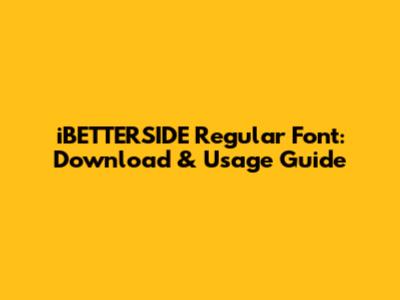
Hey design lovers and fellow font fanatics! Today, we're diving deep into the awesome world of the iBETTERSIDE Regular font. If you've been on the hunt for a typeface that's both versatile and stylish, you've hit the jackpot. This font isn't just another pretty face; it's a workhorse that can elevate your projects from "meh" to "wow!" Whether you're a seasoned graphic designer, a blogger trying to make your site pop, or just someone who appreciates good typography, understanding how to download and use the iBETTERSIDE Regular font effectively is key. We'll walk you through where to snag it, how to install it on your devices, and some killer tips on making it shine in your designs. So, grab a coffee, get comfy, and let's get this font party started!
Unpacking the iBETTERSIDE Regular Font: What Makes It Special?
So, what's the big deal about the iBETTERSIDE Regular font download? Well, guys, it's all about the details. This font is designed with clarity and readability at its core, making it a dream for everything from long-form text to catchy headlines. Its clean lines and balanced proportions ensure that no matter the size or application, your message comes across loud and clear. Think about those moments when you're scrolling through a website or reading an article, and the text just flows. That's the magic of a well-crafted font like iBETTERSIDE Regular. It’s not overly decorative, which means it won't distract from your content, but it has just enough personality to feel unique and engaging. We're talking about a font that feels modern yet timeless, professional yet approachable. This sweet spot is hard to find, but iBETTERSIDE Regular nails it. It’s the kind of font that whispers confidence and sophistication without shouting for attention. This makes it incredibly adaptable. Imagine using it for a sleek corporate brochure, a trendy cafe's menu, a personal blog's "About Me" page, or even for the user interface of an app. The iBETTERSIDE Regular font handles it all with grace. Its regular weight strikes a perfect balance – not too thin to be illegible, and not too bold to overpower other elements. This neutrality is its superpower, allowing it to play nicely with other fonts in your design arsenal. You can pair it with a more decorative font for headings, and it will happily step back and let the other font take the spotlight, while still maintaining its own understated elegance. Or, you can use it for an entire layout, and it will provide a consistent, professional look that’s easy on the eyes. The subtle nuances in its letterforms, the consistent spacing, and the thoughtful design of each character contribute to an overall aesthetic that is both pleasing and highly functional. It’s this blend of aesthetic appeal and practical utility that makes the iBETTERSIDE Regular font a go-to choice for designers looking for reliability and style.
Leveraging iBETTERSIDE Regular Font in Your Designs
Now that you’ve got the iBETTERSIDE Regular font download sorted and installed, the real fun begins: using it! This font is a fantastic all-rounder, but knowing how to best leverage its strengths can make a significant difference in your design outcomes. Let's explore some ways to make iBETTERSIDE Regular truly sing in your projects.
For Body Text and Readability:
This is where iBETTERSIDE Regular truly shines. Its clean, legible design makes it perfect for large blocks of text. Whether you're writing a blog post, crafting an email newsletter, or designing a book layout, this font ensures your readers can consume your content comfortably without eye strain. Ensure your font size is appropriate – typically between 10-12pt for print and 16px or higher for web, depending on line height. Pay attention to line spacing (leading); a good rule of thumb is to set it to about 1.2 to 1.5 times the font size to ensure comfortable reading. Letter spacing (tracking) is also important; iBETTERSIDE Regular generally has well-balanced tracking, but you might want to slightly increase it for very long lines of text to improve readability. Avoid hyphenation in short lines or narrow columns, as it can break the flow. The key is to create a comfortable reading experience, and iBETTERSIDE Regular provides a solid foundation for that.
For Headlines and Titles:
While iBETTERSIDE Regular is excellent for body text, don't underestimate its power for headlines! Its clarity makes it highly effective for titles that need to be instantly understood. To make it stand out, consider using it in a slightly larger size or perhaps in a bolder weight if available (though the regular is quite strong on its own). You can also play with color – using a contrasting color against your background can make your headlines pop. All caps can work well for shorter, punchier headlines, but be mindful of readability with prolonged use. For longer headlines, sentence case or title case often works better. Experiment with placing it on a different background color or within a distinct design element, like a colored bar or shape, to give it prominence. The iBETTERSIDE Regular font has enough presence to command attention without being overly aggressive, making it suitable for a wide range of branding applications where you want a clear, authoritative voice.
Pairing with Other Fonts:
No design is an island, and often, you'll want to pair iBETTERSIDE Regular with other typefaces. Its neutral yet stylish nature makes it a versatile partner. For contrast, pair it with a more decorative or script font for headings. For example, use iBETTERSIDE Regular for your body text and a bold, stylized display font for your main title. Or, if you're using iBETTERSIDE Regular for a headline, you could pair it with a classic serif font for the body copy to add a touch of traditional elegance. When choosing a partner font, consider the overall mood you want to convey. If iBETTERSIDE Regular brings a clean, modern feel, what do you want the other font to add? Perhaps a touch of playfulness, or maybe a sense of luxury? Stick to a limited palette – usually, two or three font families are sufficient for most designs to maintain consistency and avoid visual clutter. Ensure the fonts complement each other in terms of x-height, weight, and style. A font with a similar x-height can create a harmonious look, while contrasting x-heights can create visual interest. Remember, the goal is to create hierarchy and guide the reader's eye, and smart font pairing is a crucial part of that strategy. The iBETTERSIDE Regular font is a solid base that allows for a lot of creative freedom in these pairings.